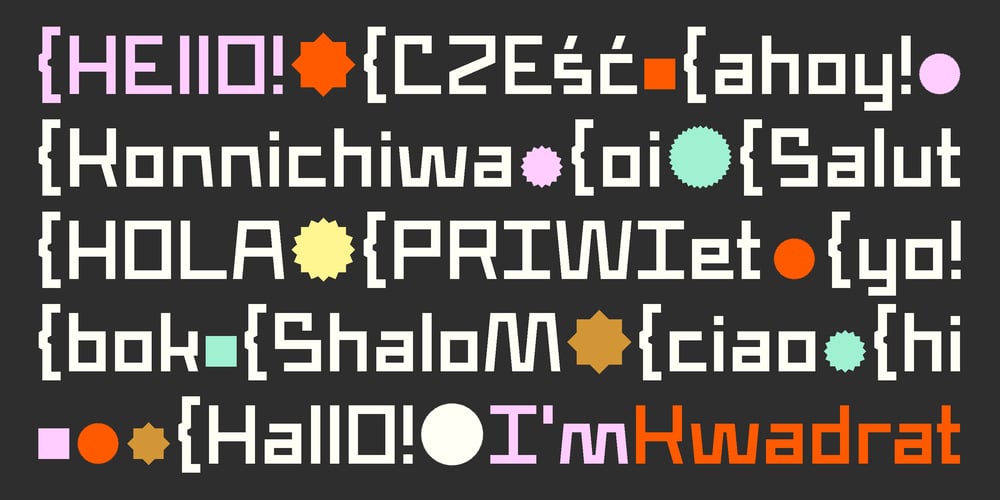
Kwadrat Font Family was designed by Malgorzata Bartosik and published by Malgorzata Bartosik. Kwadrat contains 5 styles and family package options. Kwadrat is a modern unusual typeface. Some of the letters have surprising shapes, so it can be used mainly for display purposes, but also as body text. It’s available in 4 weights: Light, Regular, Medium, Bold and as a variable font. It’s multilingual – contains Latin alphabet with Western, Central and South Eastern European diacritics. Enjoy!